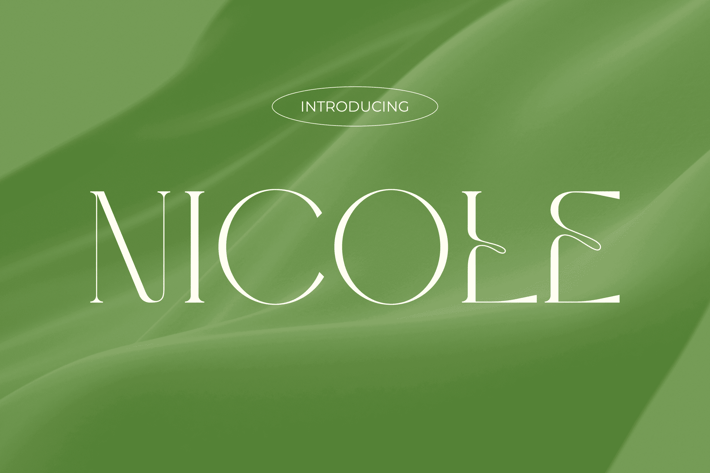
Nicole - Modern Elegance and Beauty Font
NICOLE - Serif with Modern Elegance
Nicole is a high-contrast, elegant display typeface with modern serif traits and sleek, exaggerated terminals—designed to elevate branding with a sense of fashion-forward sophistication. With its expressive curves and generous letterspacing, Nicole blends a graceful, editorial tone with a refined luxury aesthetic. The sharp structure and stylish proportions make it a striking choice for fashion magazines, Instagram quotes, or upscale product packaging.
Whether you're crafting a luxury fashion spread, launching a premium skincare brand, or designing standout wedding invitations, Nicole helps you communicate bold elegance with visual precision. Its refined letterforms and editorial charisma attract attention while preserving legibility—perfect for logos, headlines, and content that demands a polished, feminine touch.
Key Features :
Elegant Editorial Vibe
Nicole feels right at home in high-end magazines, influencer feeds, or boutique brand identities.
Contrasted & Curvaceous
Its high stroke contrast and refined terminals deliver just the right mix of drama and grace.
Style-Driven Impact
Built for visual storytelling—use it in lookbooks, fashion promos, or modern branding decks.